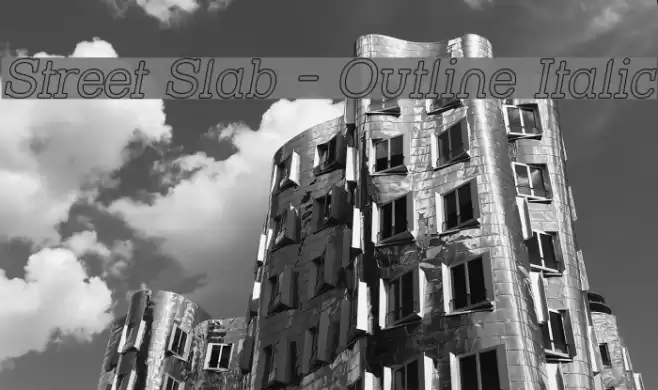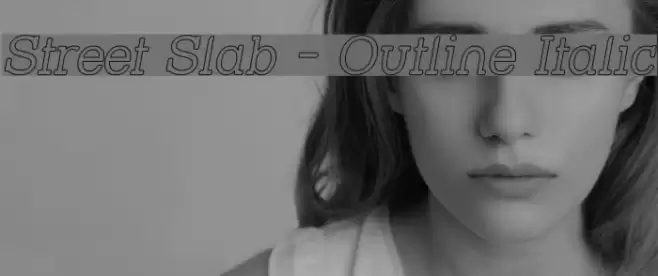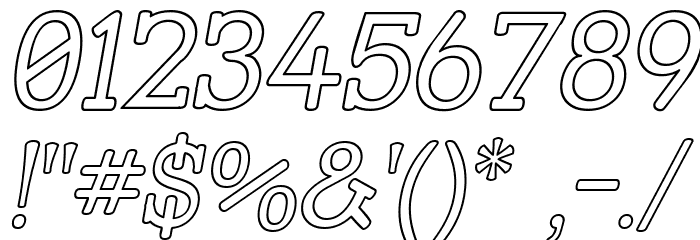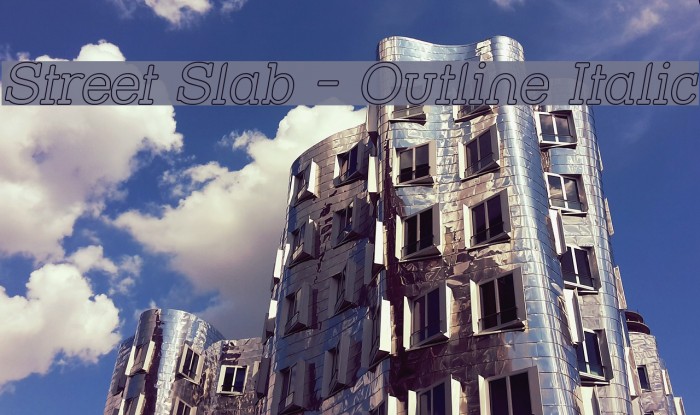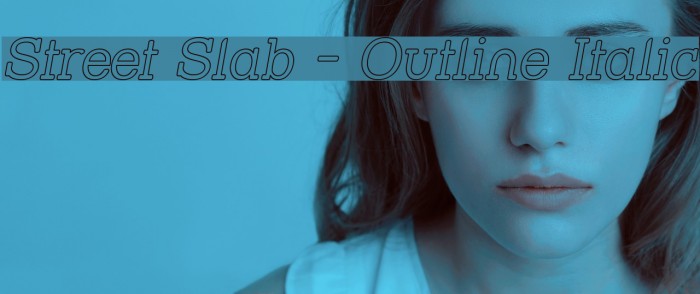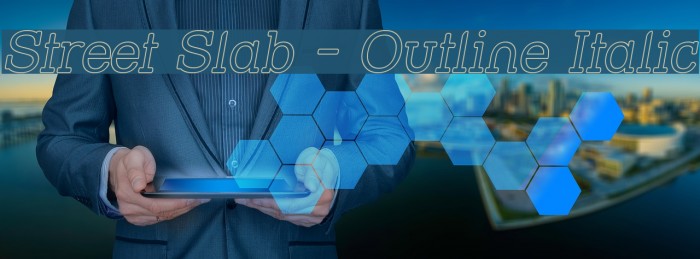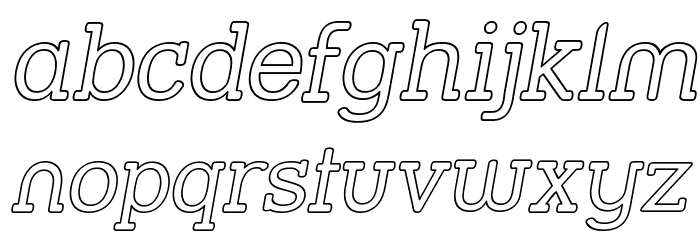
Street Slab - Outline Italic Font
Street Slab - Outline Italic Description
This font features a distinctive outline style with a slab serif design, giving it a bold yet airy appearance. The italic slant adds a dynamic and modern touch, making it stand out in any design. Each character is carefully crafted with consistent line thickness, ensuring readability while maintaining its unique aesthetic. The uppercase and lowercase letters are well-proportioned, and the numerals are clear and legible. Special characters are included, enhancing its versatility for various design needs. This font is perfect for projects that require a strong visual impact without overwhelming the viewer.
An outlined, italic slab serif font with a modern and dynamic style from Uncategorized fonts.
- Proposed Projects: Ideal for branding, headlines, posters, and any creative projects that require a bold statement.